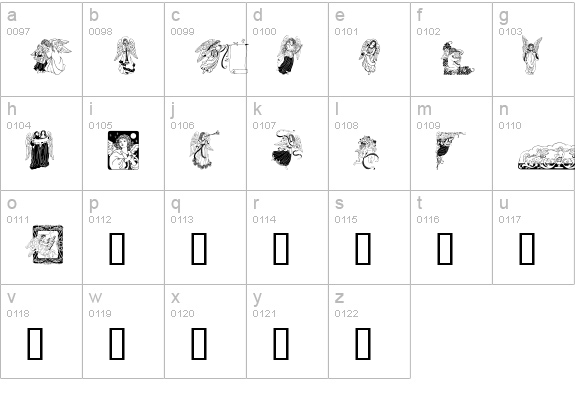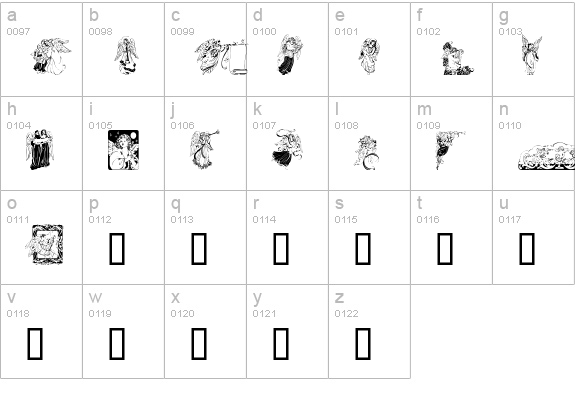
GE Angels II Font Details
Introducing GE Angels II font, a captivating and ethereal typeface that exudes elegance and grace. This font features delicate and flowing lines that give it a timeless and angelic quality, perfect for adding a touch of sophistication to your designs. The intricate details and subtle curves of GE Angels II create a sense of beauty and serenity, making it a versatile choice for a wide range of projects. What's even better is that GE Angels II is available for free download at FontsMarket.com. This means you can easily access this stunning font and elevate your creations without any cost. Whether you're working on invitations, branding, or any other design project, GE Angels II is sure to bring a touch of heavenly charm to your work. Download this enchanting font today and let your creativity soar to new heights.